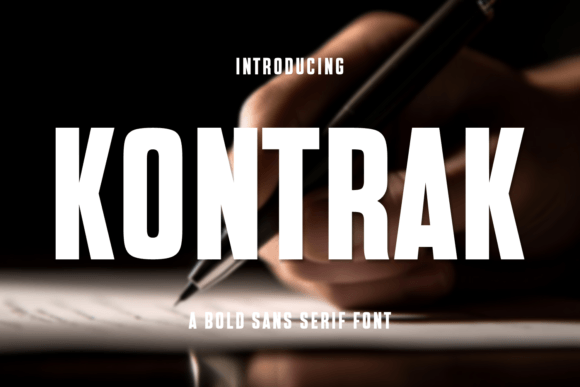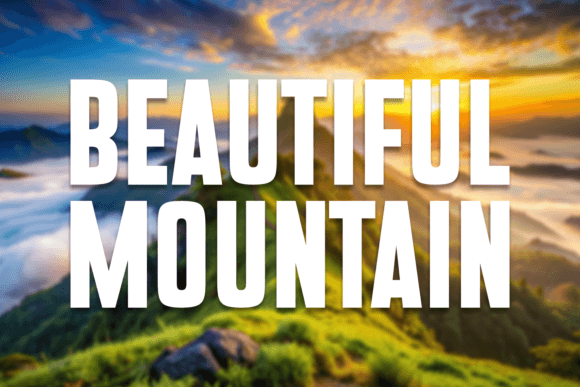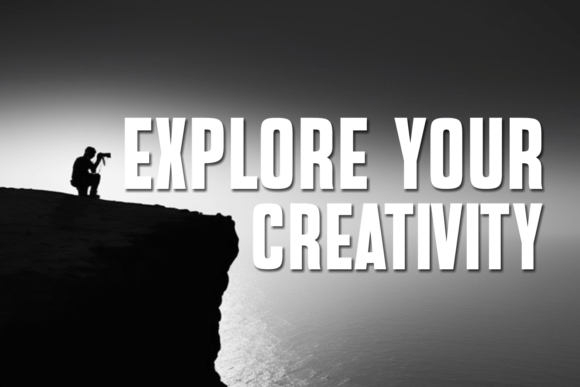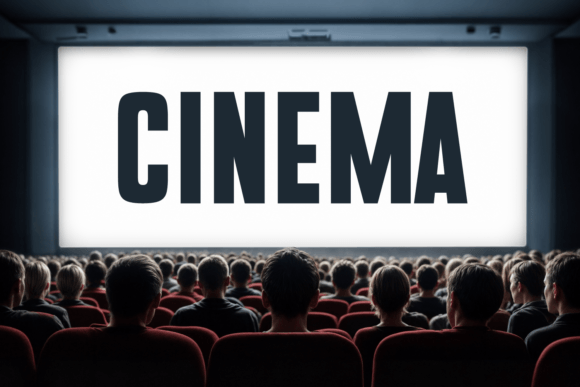
Kontrak Font: A Bold Sans Serif for Logo Design & Headlines!
About the Kontrak Font
The Kontrak Font offers a perfect balance of form and function for your design needs. Kontrak is a bold and assertive sans serif font. No matter the topic, this font will be an incredible asset to your fonts’ library, as it has the potential to elevate any creation.
Kontrak’s strong, geometric forms make it ideal for headlines, logos, and short impactful statements in branding materials and posters. Its assertive nature shines in projects requiring a confident and modern feel, such as technology, automotive, or architectural applications. However, its bold weight makes it less suitable for extended body text or UI elements where readability is paramount.
Pairing Kontrak effectively requires considering its boldness. A clean, minimalist sans-serif like Open Sans or a subtle serif like Merriweather would provide a balanced contrast for body copy. For a more playful yet sophisticated combination, consider pairing it with a delicate script font like Great Vibes for specific accents, maintaining visual hierarchy and avoiding visual clutter.
Kontrak projects an overall personality of assertive modernity. Its bold strokes convey strength and confidence without appearing aggressive. This makes it a powerful tool for brands aiming to communicate authority and innovation.
Kontrak Font Usage Examples
Kontrak Font Example